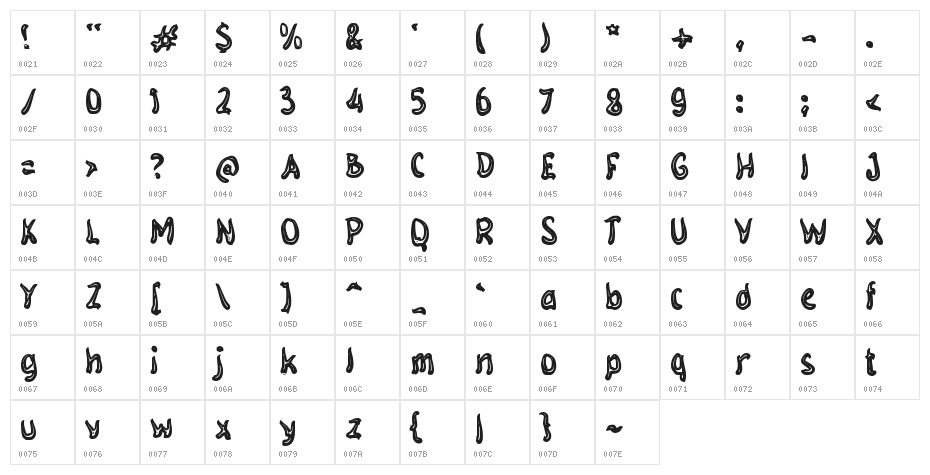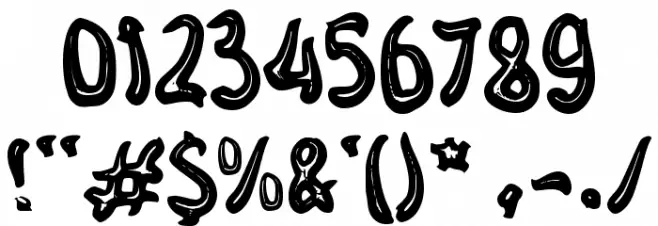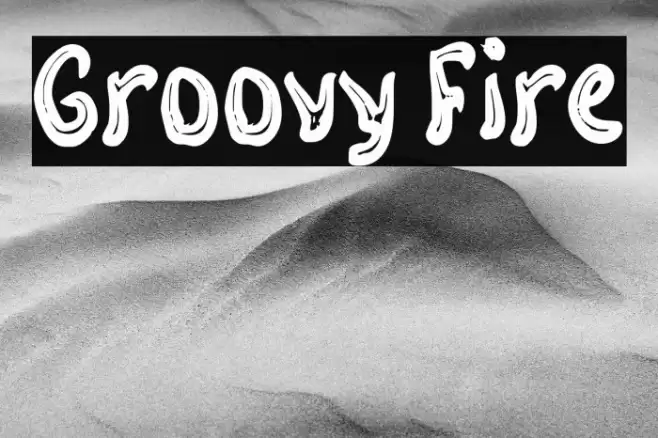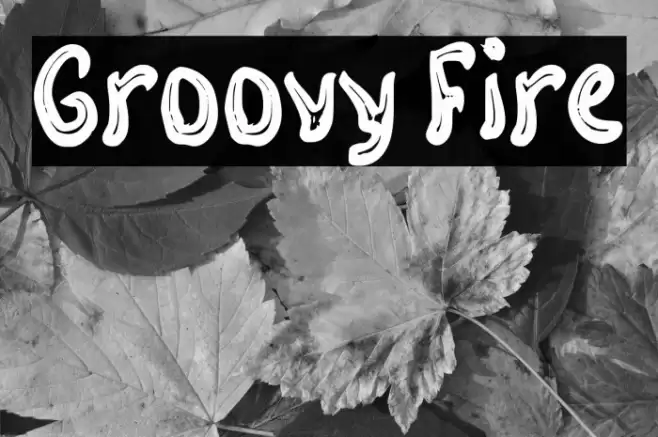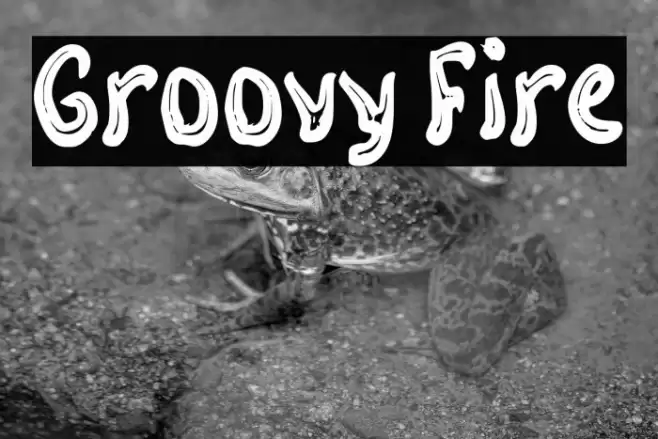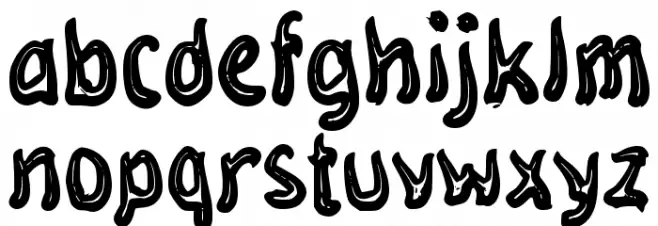
Groovy Fire Font
Groovy Fire Description
This font features a bold and playful design, characterized by its thick, uneven strokes and a hand-drawn appearance. The letters have a whimsical, almost cartoonish style, with exaggerated curves and a slightly irregular baseline, giving it a lively and dynamic feel. The uppercase and lowercase letters maintain a consistent style, while the numbers and special characters are equally expressive, adding to the font's overall charm. The font's unique style makes it stand out, making it ideal for creative and informal projects.
| Overall Style | Playful, Whimsical, Hand-drawn |
| Use Case | Headlines, Posters, Creative Branding |
| Proposed Projects | Ideal for children's books, comic strips, playful branding, and creative posters. |